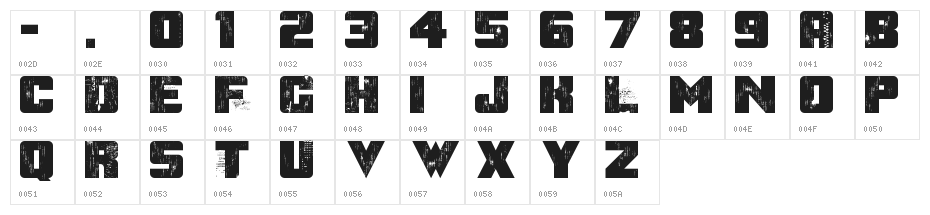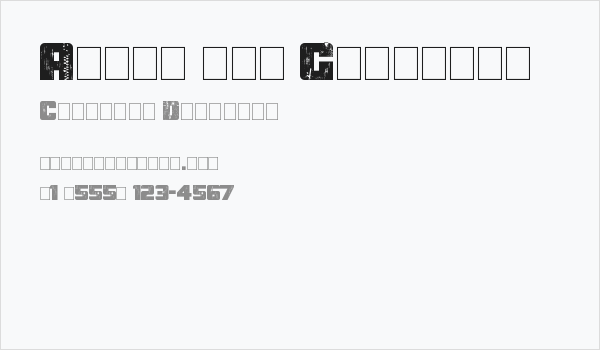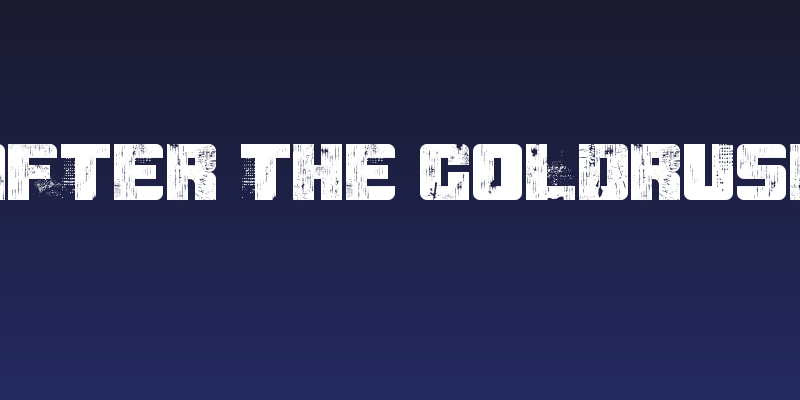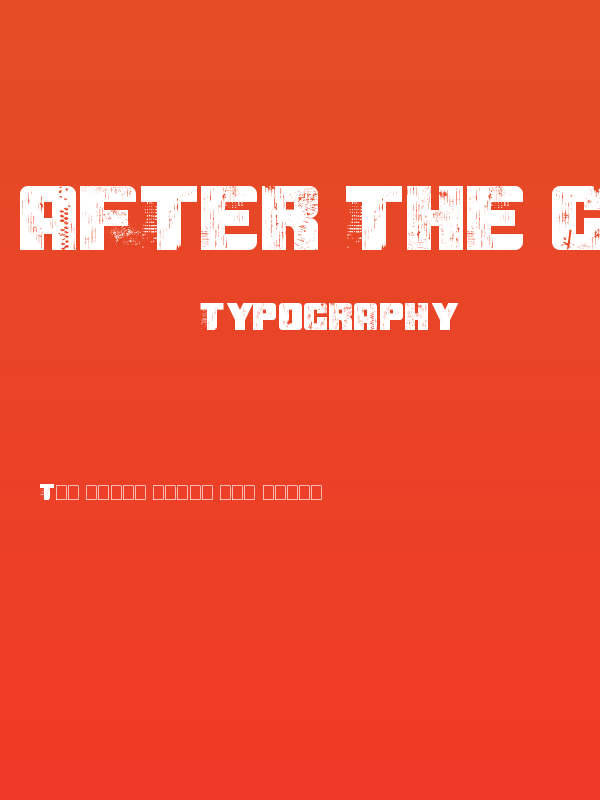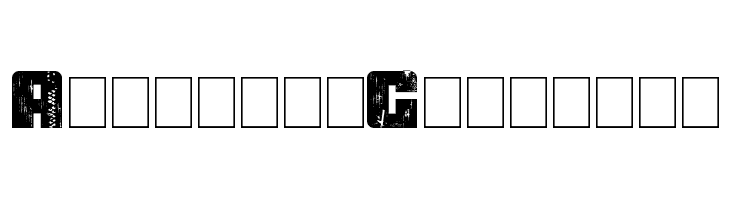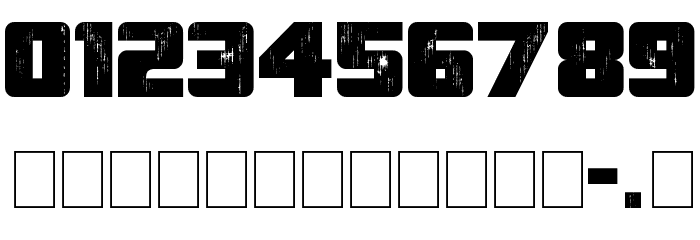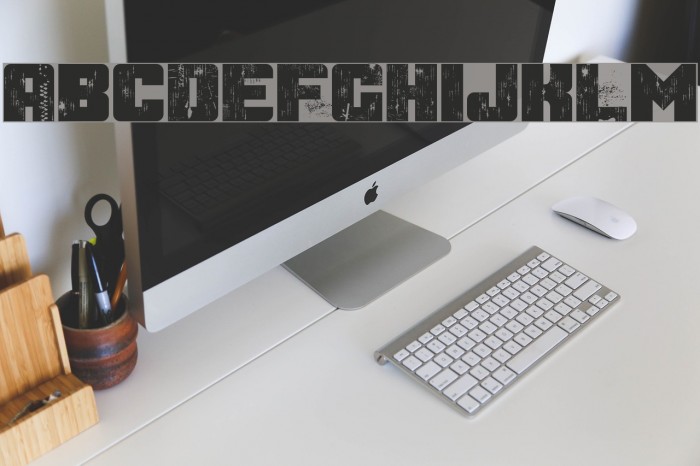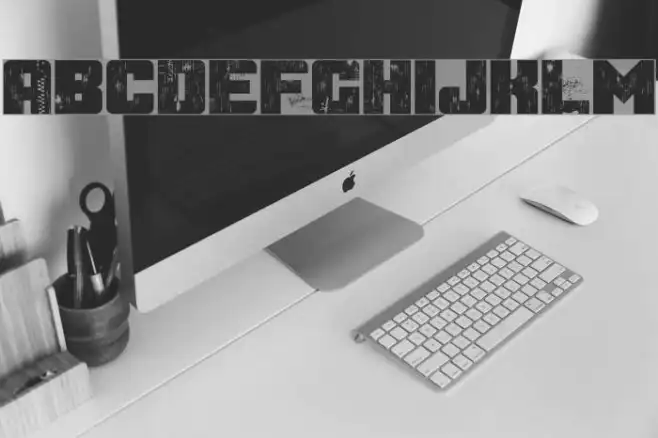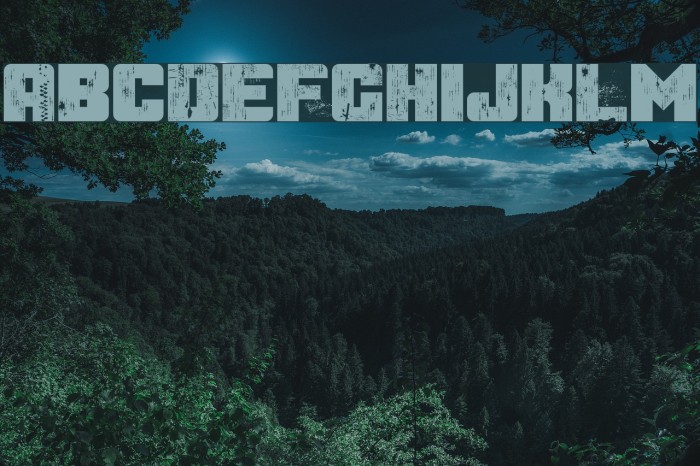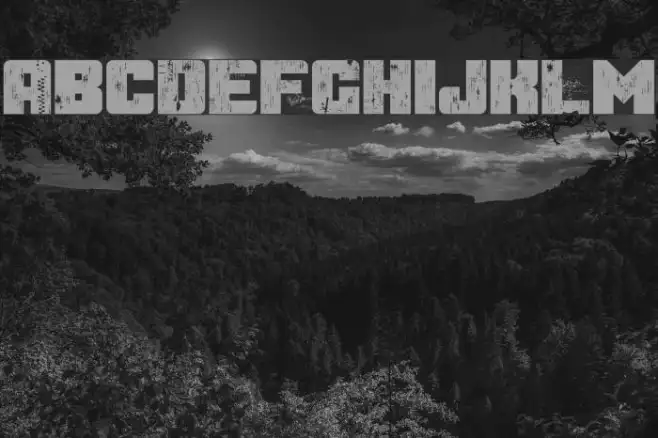
After the Goldrush Font
After the Goldrush Description
This font features a bold, distressed style with a rugged, weathered appearance. The uppercase letters are blocky and robust, with a textured effect that gives them a vintage, worn-out look. The numbers follow the same design, maintaining consistency across the character set. The font's boldness and unique texture make it stand out, ideal for projects that require a strong, impactful visual presence. Its distressed style adds a sense of history and character, making it suitable for themes related to nostalgia, adventure, or rustic aesthetics.
| Proposed Projects | Ideal for posters, album covers, branding for outdoor or adventure-related products, and vintage-themed designs. |